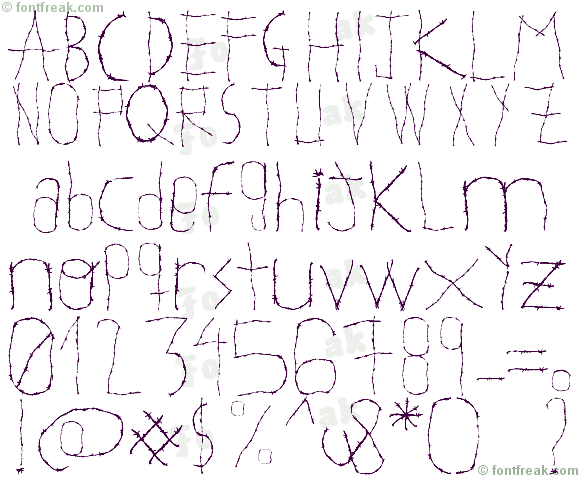
WOODCUTTER WIRE FENCE
WOODCUTTER WIRE FENCE is a distinctive display typeface designed by the creative mind of Manero in 2013. This font is classified as a decorative style, characterized by its unique wire-like appearance that evokes the imagery of rustic fencing. The strokes are intentionally uneven, enhancing its organic feel, while the overall structure maintains a moderate weight and low contrast, contributing to its approachable aesthetic. The spacing between characters is balanced, ensuring legibility while still preserving the font's artistic flair.
Ideal for a variety of creative projects, the WOODCUTTER WIRE FENCE font works exceptionally well in contexts where a casual, natural vibe is desired. It can bring charm to wedding invitations, making them feel more personal and rustic. Additionally, its quirky design makes it a great choice for movie posters that aim to capture a whimsical or adventurous theme. Restaurant menus featuring farm-to-table cuisine can also benefit from this font, as it complements the earthy elements typically associated with such establishments. Furthermore, small business owners looking to create engaging signage or promotional materials will find this typeface to be an eye-catching choice.
Targeting graphic designers, small business owners, and content creators, the WOODCUTTER WIRE FENCE font offers a fresh alternative to conventional typefaces. Its unique characteristics invite creativity and inspire innovative design solutions. For those seeking to add a touch of originality to their work, this font is an excellent resource.
In conclusion, the WOODCUTTER WIRE FENCE font stands out for its playful yet rustic aesthetic, making it an ideal choice for projects that aim to convey a sense of warmth and individuality. For those interested in incorporating this charming typeface into their designs, the WOODCUTTER WIRE FENCE font free download is readily available, making it accessible for all creative endeavors.